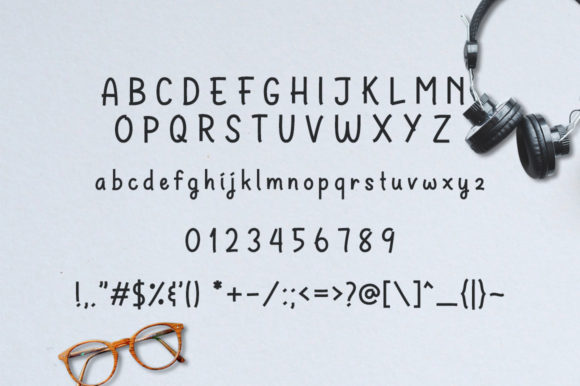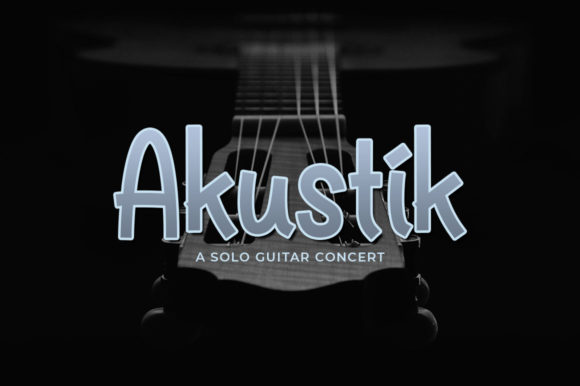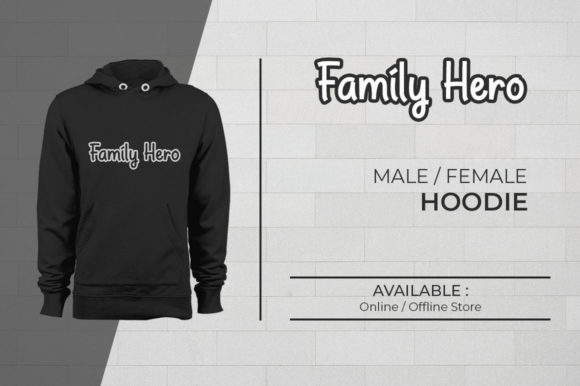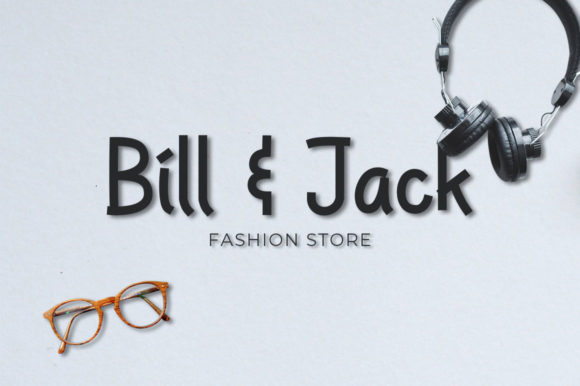
HomeScript FontsSummer Skyline Font Script Fonts Summer Skyline Font FacebookXPinterestWhatsApp Summer Skyline Font Poster 2 Summer Skyline Font Poster 3 Summer Skyline Font Poster 4 Summer Skyline Font Poster 5 About Summer Skyline Font Summer Skyline is a fun and cute handwritten font. It will easily add a charming spark to any design idea! DOWNLOAD ON CREATIVE FABRICAThis font is sold and delivered by Creative Fabrica. Font Canyon may earn a commission if you buy through this link. People also explored Floret Font Gilbertino Font Madeline Font Feminine Royal Gildan 5000 TShirt Mockup Jandu Signature Font Anatasya Font Galliso Sea Gardens Raittens Font 389 0 TagsSummer Skyline Font Previous articlePangoline FontNext articleWhen Love Font LEAVE A REPLY Cancel reply Comment: Please enter your comment! Name:* Please enter your name here Email:* You have entered an incorrect email address! Please enter your email address here Website: Save my name, email, and website in this browser for the next time I comment. Personal Use Free Capellen Personal Use Free Read more about this font Comic Caps Personal Use Free Read more about this font I Am Exceptional Personal Use Free Read more about this font Pasile Personal Use Free Read more about this font BLOG Exploring Font Trends Shaping Communication in the Digital Era Fonts, like all design elements, are subject to trends. They play a crucial role in communicating a brand's personality,... Transform Your Website: Elevate Your Typography with 7 Best Web Font Generators Fonts That Capture the Spirit of New York City Elegant Wedding Invitation Fonts – Handwritten & Script Fonts